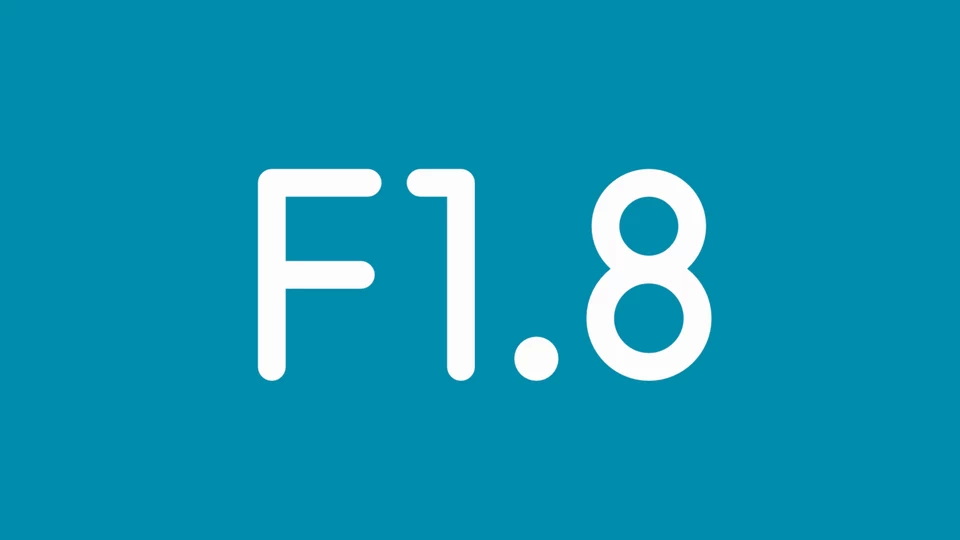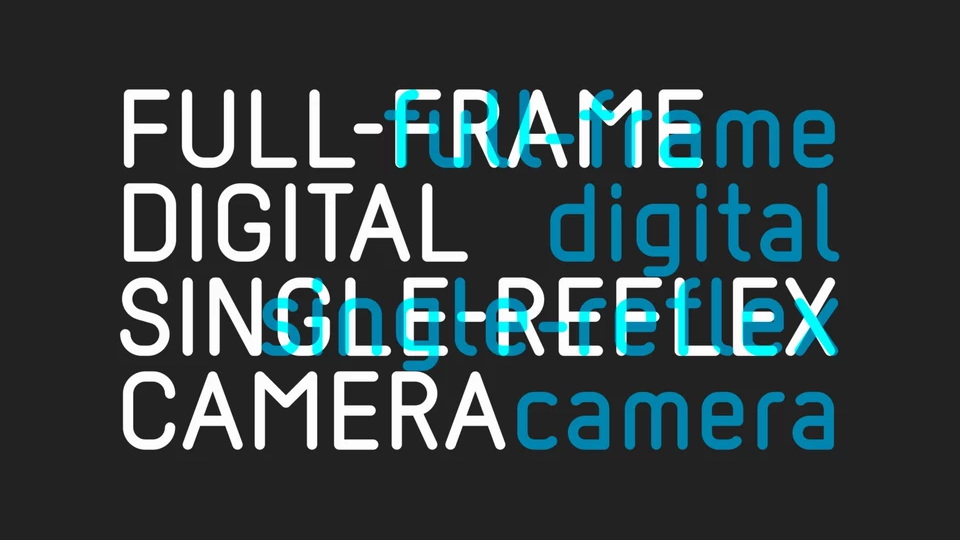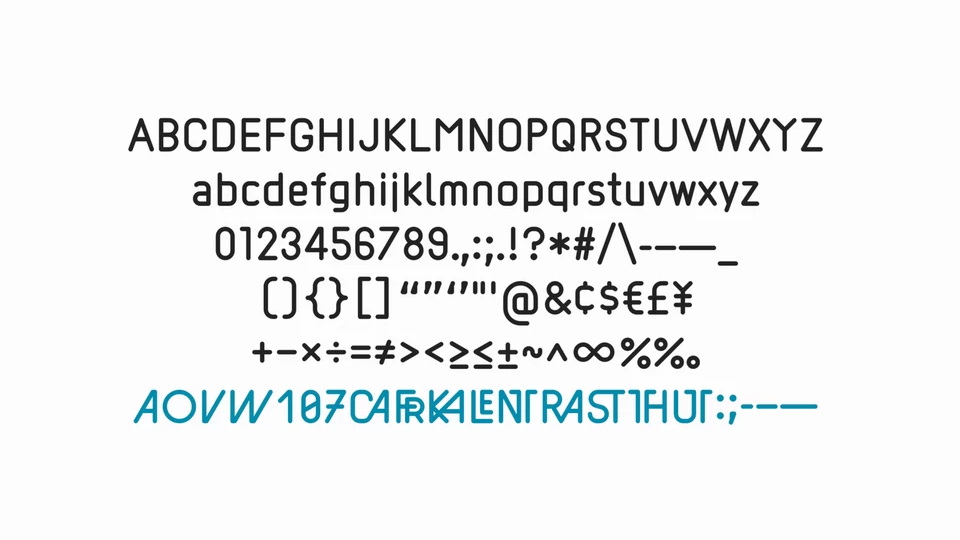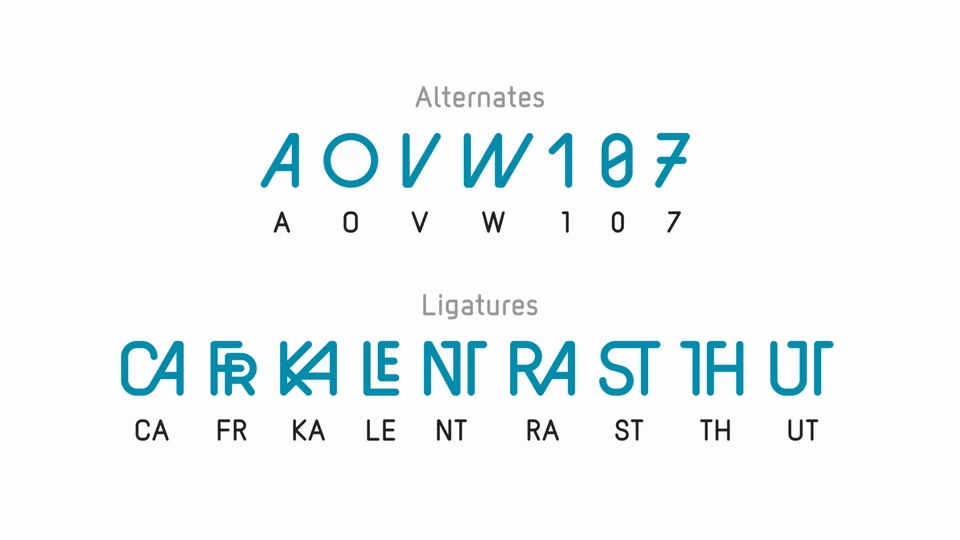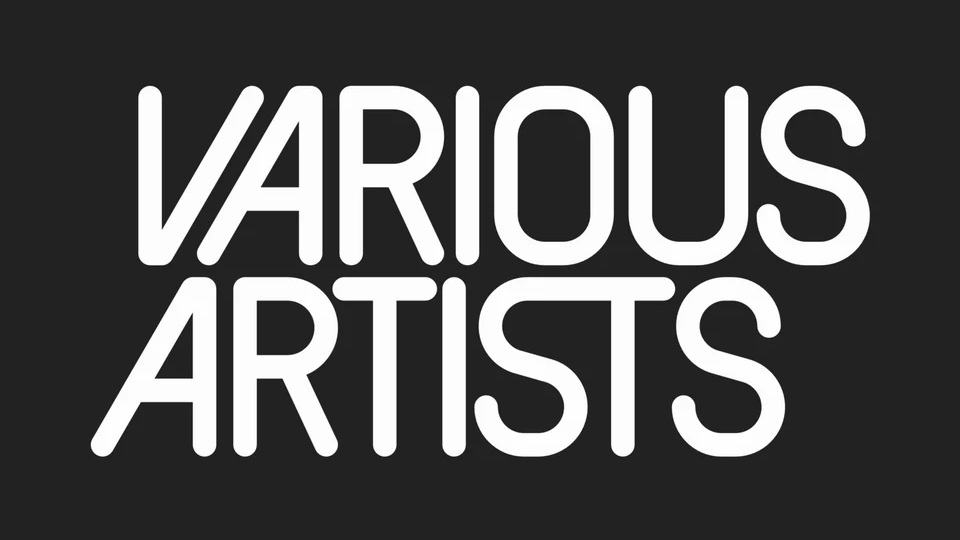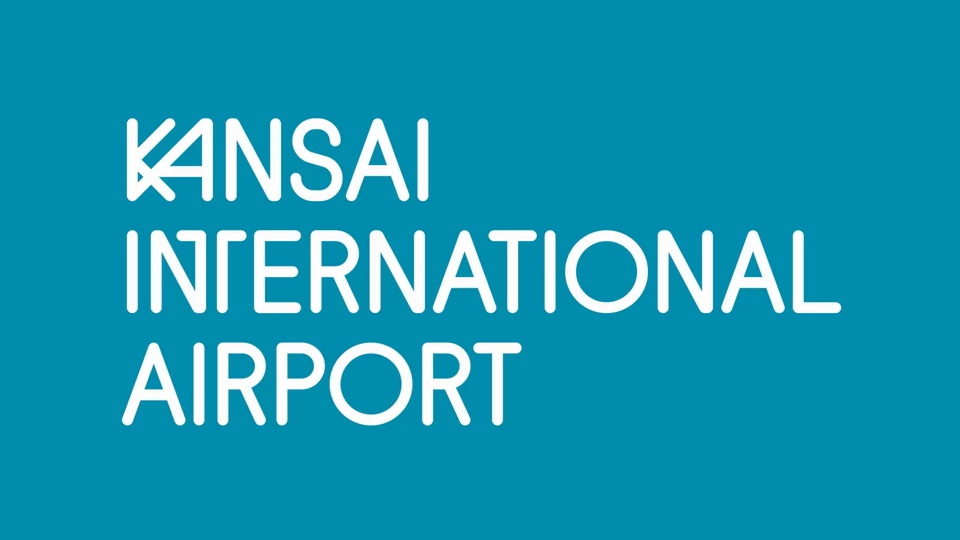
F1.8 is a sans-serif font with a constant width stroke that follows the basic rules of machine engraving typefaces. Initially, it was planned to be released as an upgraded version of F5.6, but since the concept has changed considerably, it is a different font.
F1.8 is inspired by the font used by Leica, but arranged in a more modern way and reconstructed as a display typeface. While incorporating geometric elements, it has balanced straight lines and curves so that they do not look stiff as a whole.